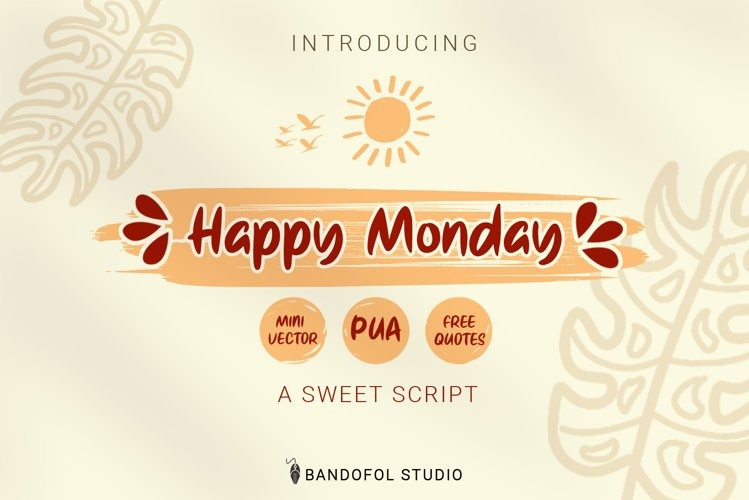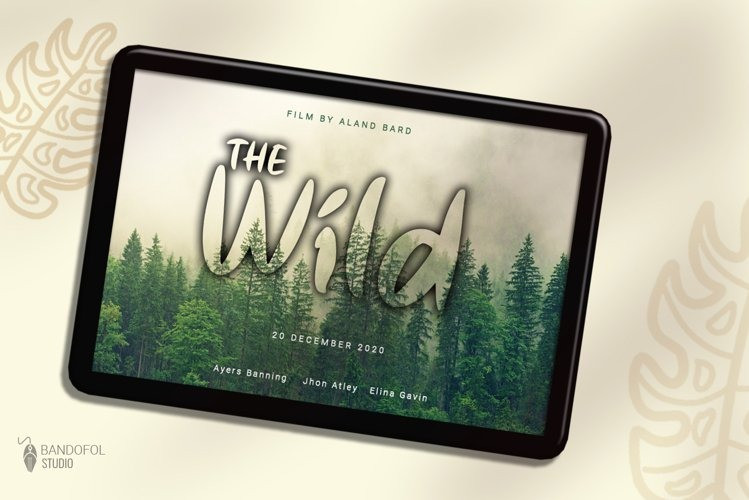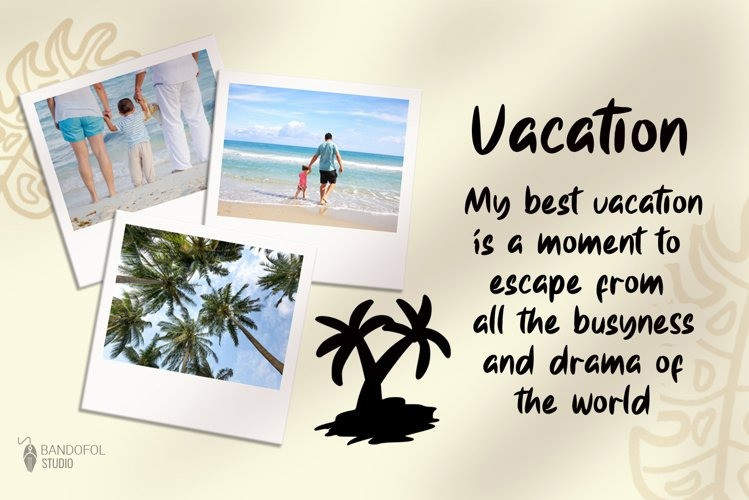
Happy Monday Display Font
The Happy Monday font, from Bandofol Studio, is a beautiful and cute font with a kids feel. This font is suitable for any project such as: logo, branding project, homeware design, product packaging, mugs, quotes, posters, shopping bags, t-shirts, book covers, name cards, invitation cards, greeting cards, labels, photography, sign special events, and all your other lovely projects that require a lovely, cute feel.